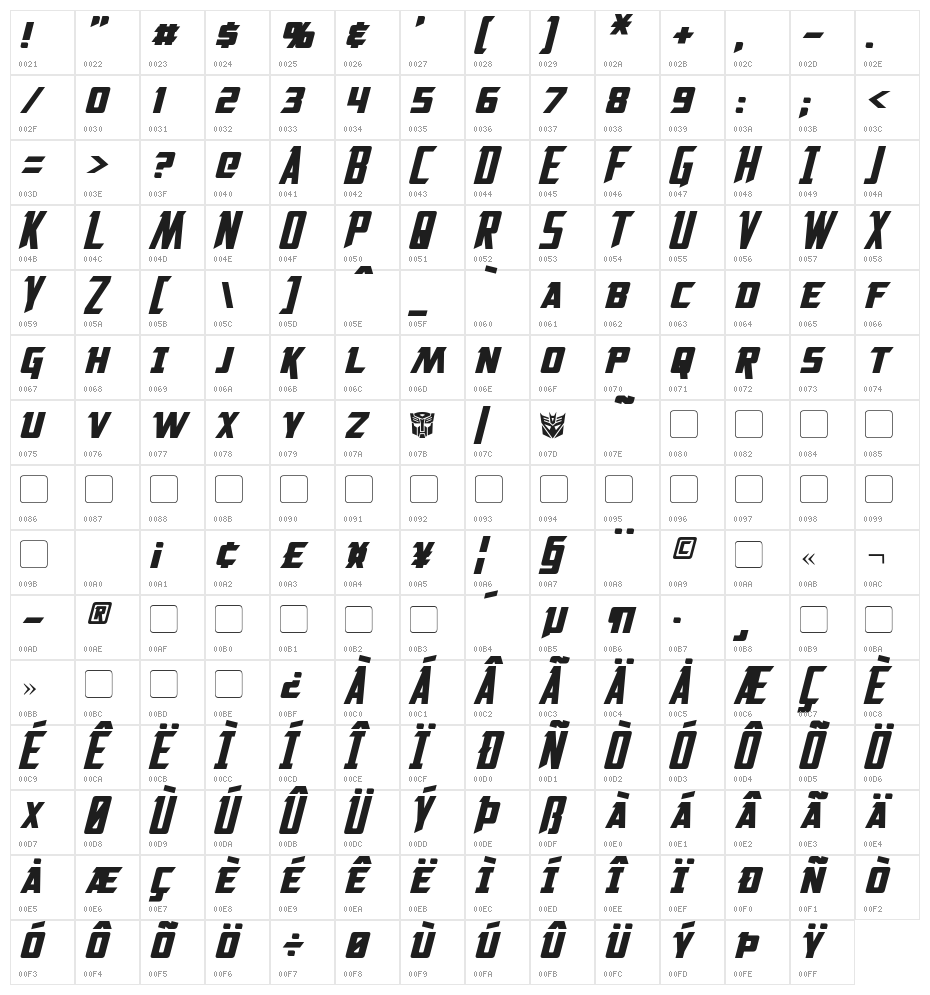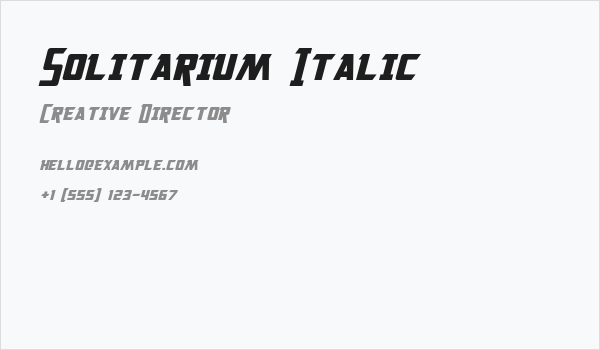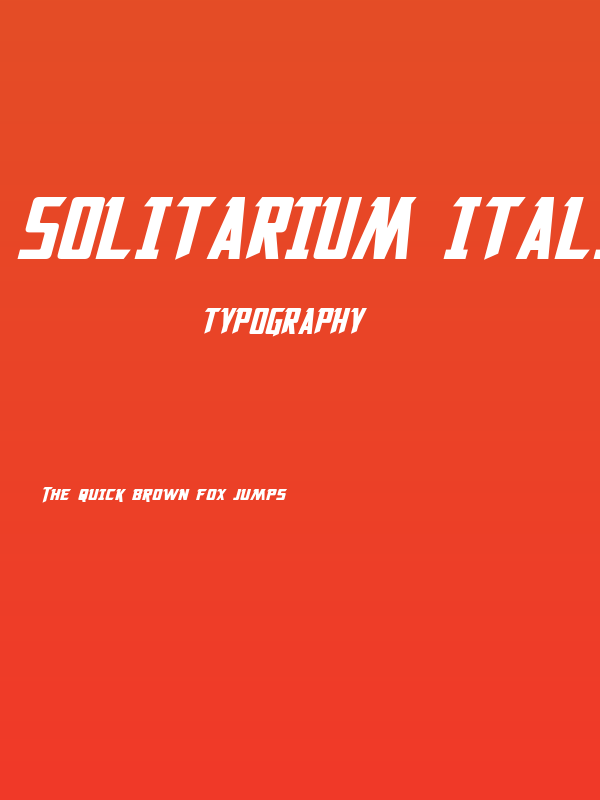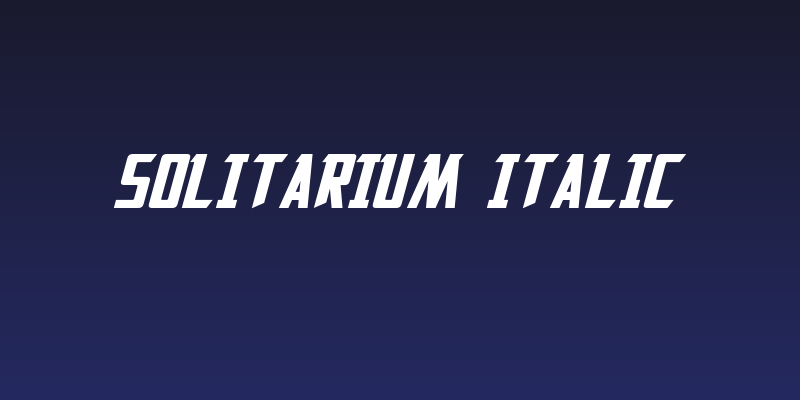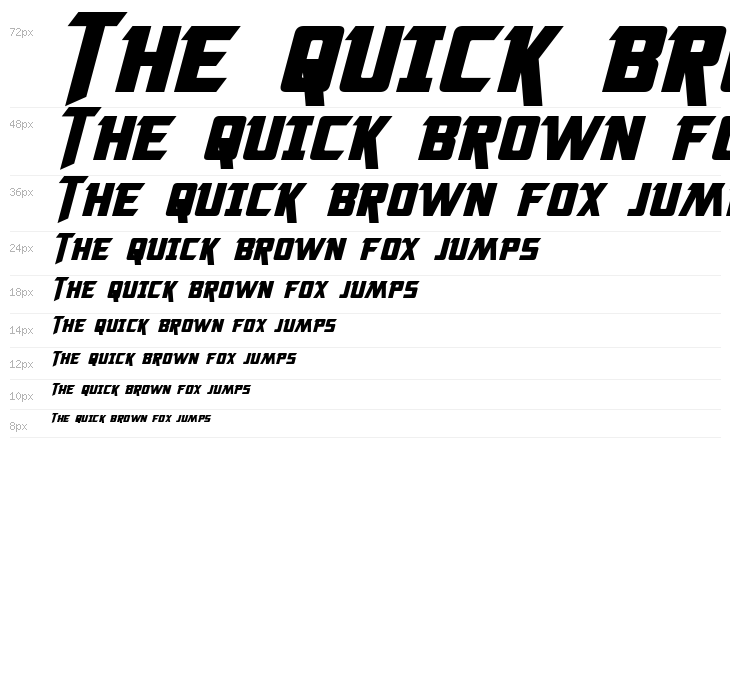
Solitarium Italic Font
Solitarium Italic Description
This font exhibits a bold, italicized style with a modern and dynamic appearance. The characters are sharply angled, giving a sense of movement and energy. The uppercase and lowercase letters maintain a consistent slant, enhancing the italic effect. The numbers and special characters follow the same stylistic approach, ensuring uniformity across all glyphs. The font's strong geometric shapes and clean lines make it suitable for attention-grabbing designs. Its boldness is complemented by a medium contrast in stroke thickness, which adds to its legibility and visual impact.